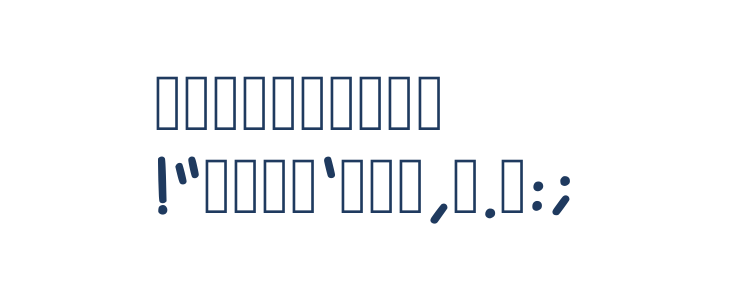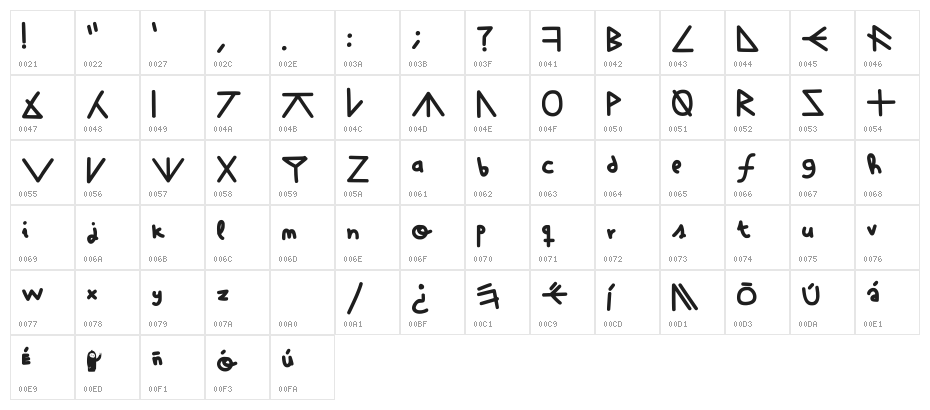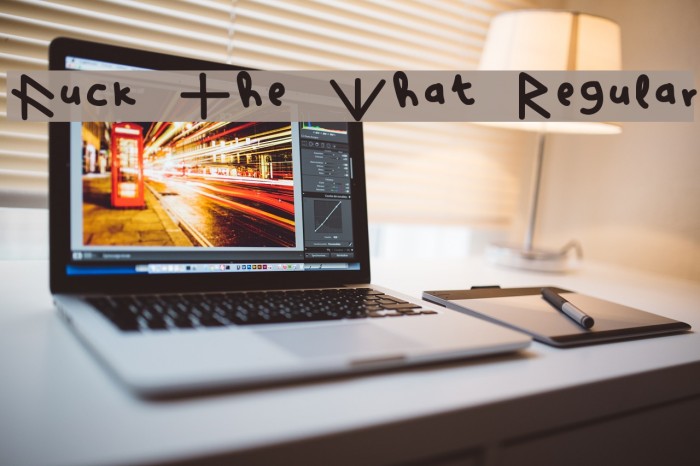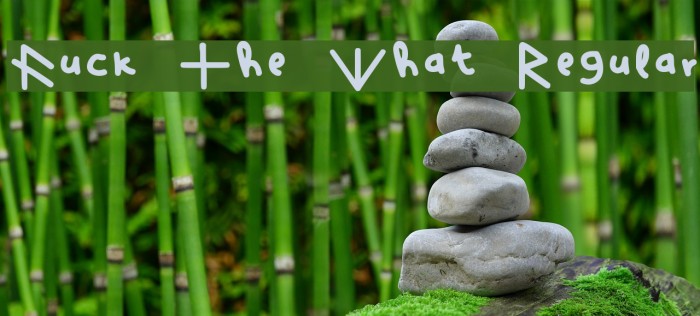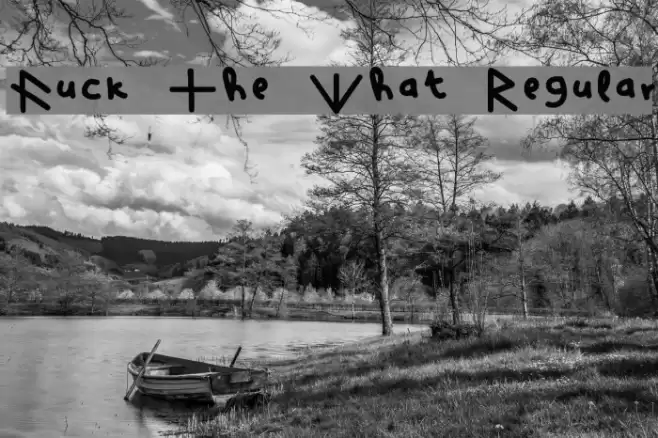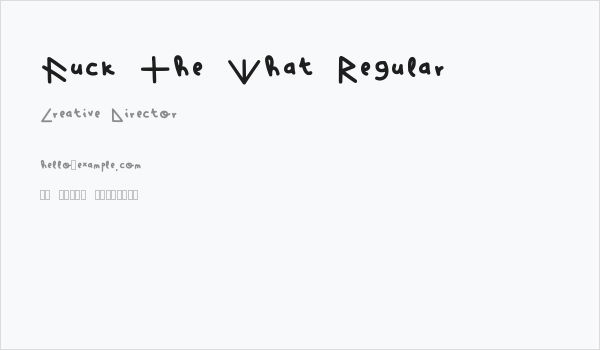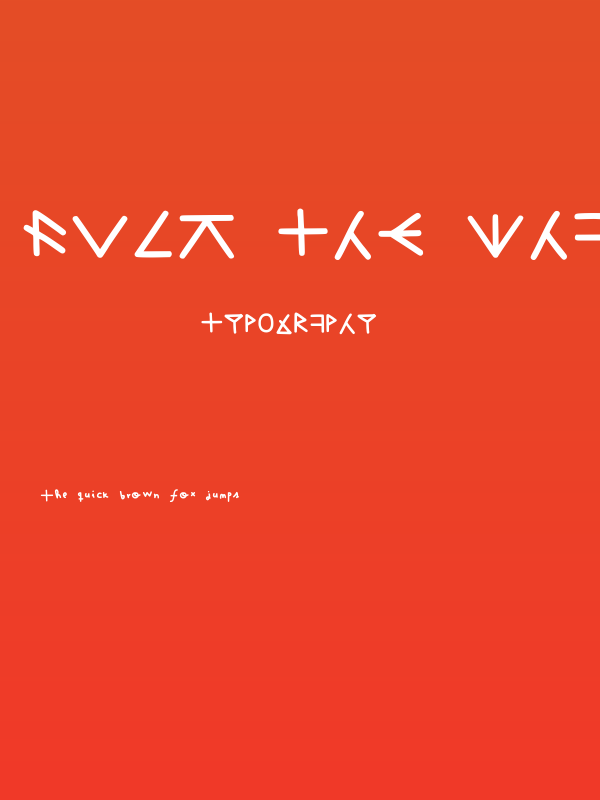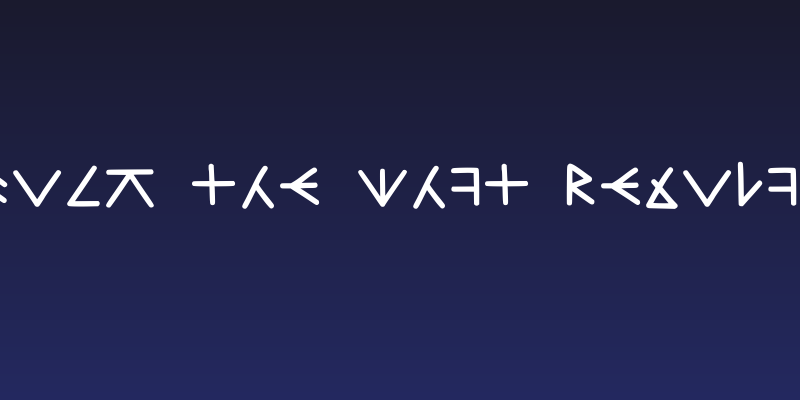
Fuck The What Regular Font
Fuck The What Regular Description
This font features a unique and playful design with a hand-drawn aesthetic. The uppercase letters are characterized by angular, geometric shapes, while the lowercase letters have a more rounded and casual appearance. The numbers and special characters maintain this whimsical style, adding a touch of creativity and fun. The overall look is bold and expressive, making it ideal for projects that require a distinctive and artistic flair.
| Overall Style | Playful, Artistic |
| Proposed Projects | Ideal for creative projects such as children's books, playful branding, artistic posters, and unique invitations. |